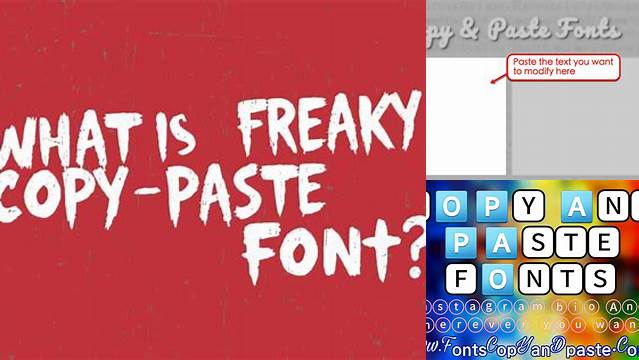
Copy & Paste Fonts: Your Ultimate Guide
Hey there, font fanatics! Ever wanted to spice up your text with some cool, unique fonts, but didn't want to deal with installing them on your system? Or maybe you just needed a quick way to share some stylish text with your friends online? Well, you're in the right place! This guide is all about all fonts copy and paste, making it super easy for you to copy and paste any font you desire. We're talking about a hassle-free way to add some pizzazz to your social media posts, emails, or even your online games. Forget the complicated downloads and installations; we're going straight to the good stuff – the instant gratification of stylish text! This guide will break down everything you need to know, from the basics of copying and pasting to finding the perfect fonts for every occasion. So, buckle up, grab your virtual scissors and glue, and get ready to transform your text into something truly eye-catching. Let's dive in and explore the wonderful world of all fonts copy and paste!
How to Master the Art of Copy and Paste Fonts
So, how exactly does this font copy and paste magic work? The secret lies in online font generators and converters! These nifty tools allow you to type in your desired text, select a font from a wide variety of styles, and then copy the stylized text directly. You can then paste this text into any application that supports text input. It's that simple! But there's more to it than meets the eye. These generators often use Unicode characters, which are essentially special characters that represent different font styles. When you copy and paste text generated with these tools, you're actually copying these Unicode characters. The receiving application then renders these characters based on the font support on the recipient's system, ensuring that your fancy font appears correctly. The beauty of this method is its versatility. You don't need to install any fonts on your computer, making it perfect for quick social media updates, sharing text with friends on different devices, or even creating cool usernames for games. The key is finding the right font generator and knowing where to paste your stylish text. Also, remember that not all platforms or applications support all font styles. Some platforms might display a fallback font if the specific Unicode characters aren't supported. The important thing is to experiment and discover which font styles work best on your favorite platforms. With practice, you'll become a pro at copying and pasting fonts like a pro, adding a touch of flair to all your online communications.
Exploring the World of Free Font Copy and Paste Generators
Alright, let's get down to the nitty-gritty – where do you find these font generators? Fortunately, there are tons of free online tools that make all fonts copy and paste a breeze. Some popular options include websites like Stylish Text Generator, Cool Fancy Text Generator, and LingoJam. These generators typically have a user-friendly interface, allowing you to type in your text, preview different font styles, and then copy the output. The variety of fonts available is often astounding, from elegant cursive styles to bold, quirky designs. When choosing a generator, consider the features you need. Some generators offer additional options, such as the ability to customize the text size, color, or spacing. Others provide a wider selection of font styles or support for specific social media platforms. It's a good idea to experiment with a few different generators to find the one that best suits your needs. Another aspect to consider is the generator's compatibility. While most generators create Unicode characters that are widely supported, some may produce characters that aren't universally compatible. Always test your copied text on the platform or application where you intend to use it. Look for the generators that are regularly updated, and make sure they have a good reputation within the online community. The best free font generators will allow you to effortlessly transform your text into something unique and engaging without costing a dime. So go ahead, explore the different options, and discover which generators become your go-to tools for creating text with style!
Top Font Styles You Can Copy and Paste Instantly
Now comes the fun part: picking the perfect fonts! When it comes to all fonts copy and paste, the possibilities are endless. But with so many choices, where do you even begin? Here's a quick rundown of some popular font styles that you can copy and paste instantly. First up, we have cursive fonts. These are often associated with elegance, sophistication, and a touch of romance. They're perfect for invitations, social media captions, or creating a personalized feel. Then there are bold fonts, which are all about making a statement! These are ideal for headlines, emphasizing important text, or grabbing attention in a sea of content. For something a little more playful, try bubble fonts. These are cute, fun, and often used for children's content, social media graphics, or adding a lighthearted touch to your text. If you're aiming for a more vintage vibe, consider retro fonts. These can include anything from classic typewriter styles to vintage signage, ideal for creating a nostalgic or retro aesthetic. And let's not forget gothic fonts, which can range from elegant to spooky! These are great for Halloween-themed posts, fantasy-inspired content, or adding a mysterious edge to your text. Before you decide on which font style to use, consider your audience and the overall message you're trying to convey. Certain font styles work better for some contexts than others. Have fun experimenting!
Copy and Paste Fonts: Enhancing Your Social Media Presence
Social media is all about standing out, right? And all fonts copy and paste is the perfect tool to help you do just that! Using cool fonts in your social media posts can instantly grab attention, increase engagement, and make your content more memorable. Think about it – in a feed filled with similar-looking text, a unique font can be the difference between someone scrolling past and stopping to read your post. When creating your social media content, think of the font as part of your branding. You want to choose fonts that reflect your style and personality. If you're a fun, playful brand, consider using bubble fonts or quirky styles. For a more professional look, try elegant cursive fonts or clean, modern sans-serifs. Consistency is key! Use the same font style or a consistent set of fonts across your posts to build brand recognition. Also, think about the platform. Different social media platforms support different fonts, and the way the text appears might vary. Before you post, test your text on the specific platform to make sure it looks how you want it. Also, be mindful of readability. While a fancy font might look cool, if it's hard to read, it won't do much good. Choose fonts that are legible, especially for longer text. Use these fonts to create eye-catching usernames, bios, captions, and even direct messages. By adding some style to your content, you can significantly boost your social media presence, attracting new followers and keeping your current audience engaged.
Font Copy and Paste on Different Platforms: A Quick Guide
Now, let's get down to the nitty-gritty of using all fonts copy and paste on various platforms. First up, let's talk about the big ones: Facebook and Instagram. Both platforms support Unicode characters, so you can use a wide variety of font styles generated from online tools. Simply copy your stylized text and paste it into your posts, bios, or comments. Twitter also supports custom fonts, so feel free to spice up your tweets with some cool text. However, keep in mind that the font might not appear exactly as you see it on the generator, but it should still be unique. When it comes to messaging apps, things can be a bit more inconsistent. WhatsApp, Telegram, and other messaging apps often support a range of Unicode characters, but the appearance might vary depending on the device and operating system. Always test your text to ensure it looks good to your recipients. In gaming platforms like Discord, you can definitely use custom fonts in your usernames, chat messages, and server descriptions. Just remember that the appearance will depend on the settings and support of the specific platform. Always test your stylized text and adapt your font choices accordingly. By understanding the nuances of font support on each platform, you can ensure your creative text looks amazing.
Troubleshooting Common Font Copy and Paste Issues
Even though all fonts copy and paste is generally smooth sailing, there are a few common issues you might encounter. First off, the most common issue is incompatible fonts. Not every platform or application supports every font style. Some platforms might display a fallback font or show blank boxes. If you encounter this, try a different font style, as some styles are more widely supported than others. Another issue is readability. If your chosen font is too fancy or difficult to read, it can defeat the purpose of using a unique font. Make sure your text is easy to read, especially for longer blocks of text. Consider the color and background of your text. Using light text on a light background or vice versa can reduce readability. Check your formatting and consider line breaks to improve readability. And finally, there is inconsistent appearance. The way your font appears on your device may differ from how it appears on other devices. This is due to different operating systems, devices, and browser configurations. To mitigate this, always test your text on multiple devices. If your font appears differently, it's likely because of how that specific device handles the Unicode characters. By being aware of these potential issues, you can troubleshoot any problems and ensure your text looks great every time.
Advanced Tips for Font Copy and Paste Enthusiasts
Ready to take your all fonts copy and paste game to the next level? Here are some advanced tips to help you stand out. First, experiment with combining fonts. While some generators only allow you to use one font at a time, try to combine different font styles for a unique effect. Maybe use a bold font for your headings and a cursive font for your body text. Next, consider the context of your text. Think about what you are trying to convey. For professional content, try clean, modern sans-serif fonts, while for a fun and playful approach, you can use bold fonts. And don't forget testing your text across multiple platforms and devices. Always test your text to ensure it looks the way you want it to on all of your target platforms. Also, consider the use of special characters and symbols. Many font generators support special characters, like emojis and symbols, which can add a touch of personality to your text. Use these to enhance your content and make it more visually appealing. Finally, stay up-to-date with the latest font trends. The world of fonts is constantly evolving, with new styles emerging all the time. Keep an eye on font trends to stay ahead of the curve and give your content a fresh, modern look. By applying these advanced tips, you can become a font copy and paste pro and elevate your text to the next level!
The Ethical Considerations of Using Font Copy and Paste
As you start using all fonts copy and paste, it's important to be mindful of the ethical considerations surrounding font usage. While copying and pasting fonts is generally acceptable, it's essential to respect copyright and licensing. Many fonts are copyrighted and require a license for commercial use. Always check the font's license before using it in any professional or commercial context. Some font generators may create fonts that resemble copyrighted fonts. Using these fonts can potentially infringe on copyright laws. If you're unsure about a font's license, it's best to err on the side of caution and stick to free, open-source fonts. Respecting intellectual property rights is important. Avoid using copyrighted fonts without proper authorization. Also, think about accessibility. While unique fonts can be visually appealing, make sure your text is still accessible to everyone. Some fonts can be difficult to read, especially for those with visual impairments. Always ensure your text is legible, and consider using alternative text for images. Also, think about the context in which you use fonts. Some fonts can be inappropriate for certain settings. It is important to use fonts that align with the values of your brand and its message. Remember, using fonts responsibly is crucial. By being aware of these ethical considerations, you can use fonts in a way that is both creative and respectful of intellectual property rights.
Font Copy and Paste: The Future of Text Customization
Looking ahead, the future of all fonts copy and paste is looking bright, with text customization evolving in exciting ways. Advances in AI and machine learning will soon allow us to generate custom fonts to meet our individual preferences. This would revolutionize the way we customize our text. Imagine AI-powered tools that can design a custom font for your specific needs. We can anticipate more seamless integration across all platforms and devices. We can expect more diverse and creative font styles. With the metaverse and other immersive platforms, fonts will continue to evolve. Expect more tools that support people with visual impairments. These ongoing advancements will make all fonts copy and paste an integral part of our digital lives. By embracing these trends, you can prepare yourself for an exciting and innovative future.